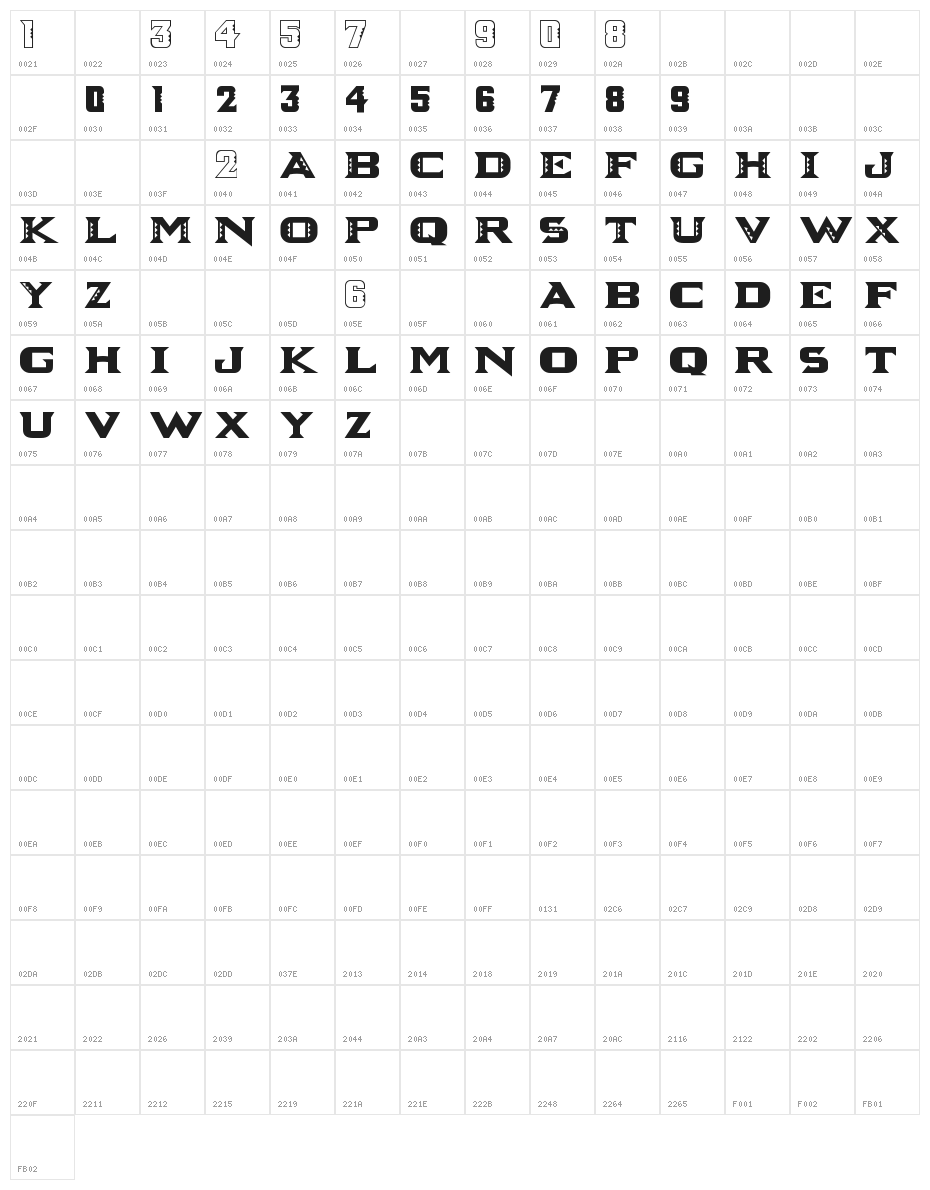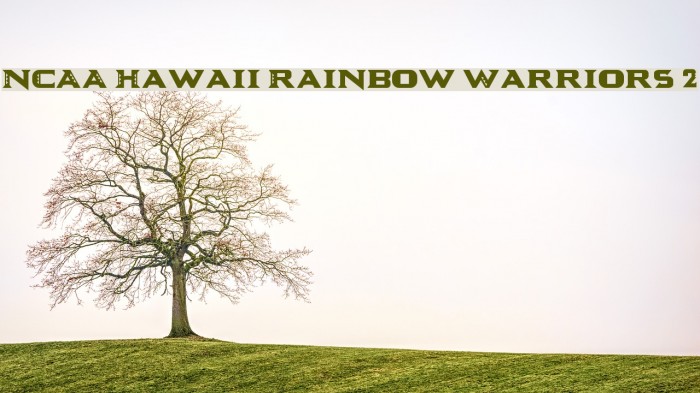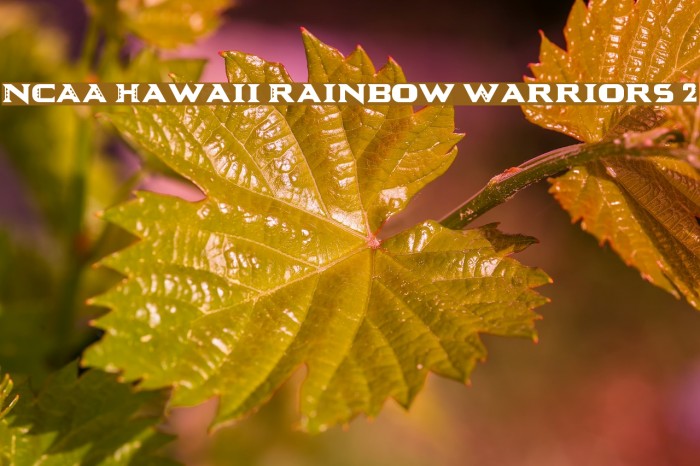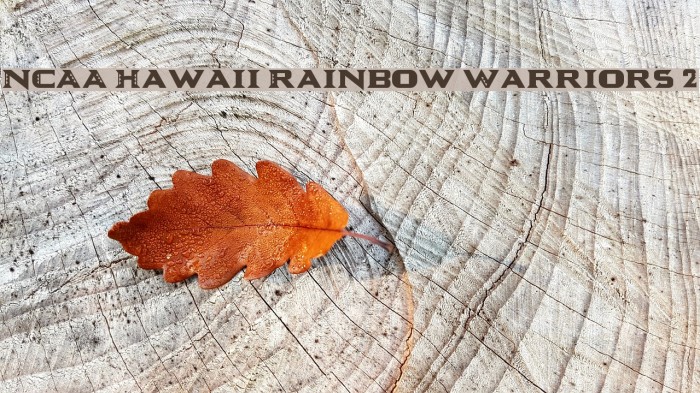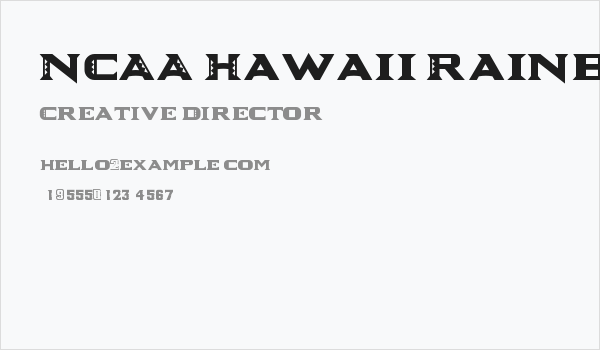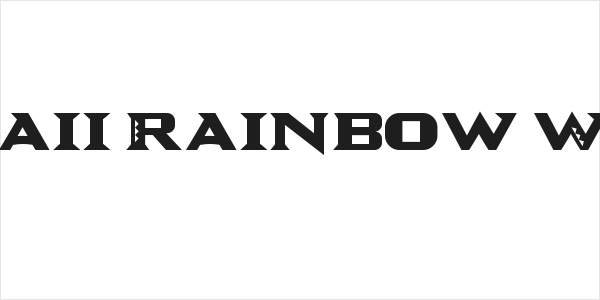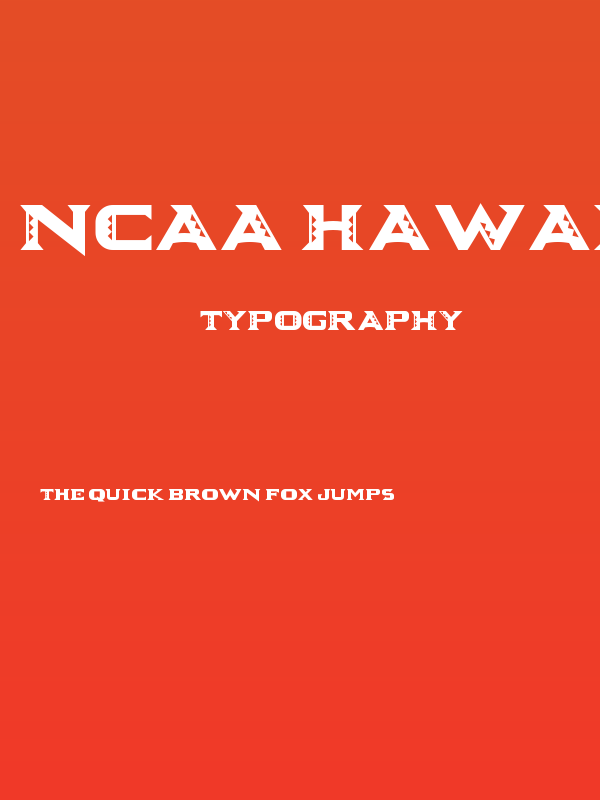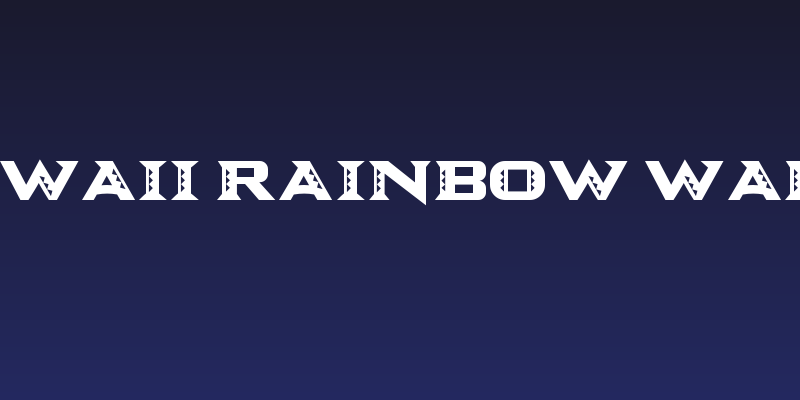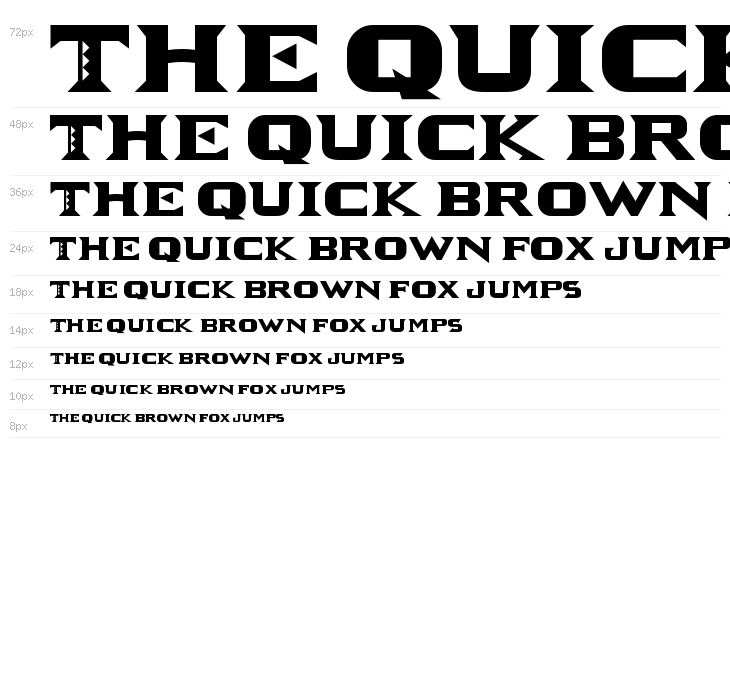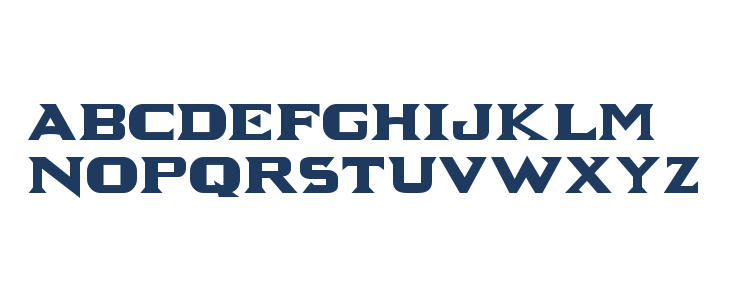
NCAA Hawaii Rainbow Warriors 2 Font
NCAA Hawaii Rainbow Warriors 2 Description
This font features a bold and striking design with a unique tribal-inspired pattern integrated into the letterforms. The uppercase letters have sharp, angular edges, giving them a strong and dynamic appearance. The numbers are equally bold, with distinctive cut-out patterns that add a sense of movement and energy. This font is perfect for projects that require a bold statement and a touch of cultural flair. The overall style is both modern and decorative, making it suitable for a variety of creative applications.
Overall StyleModern, Decorative
Proposed ProjectsIdeal for sports branding, event posters, team merchandise, and cultural festival promotions.